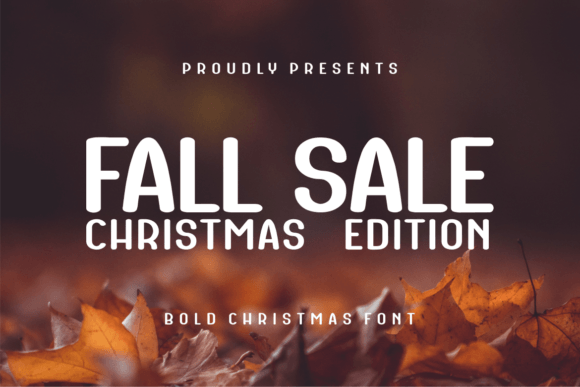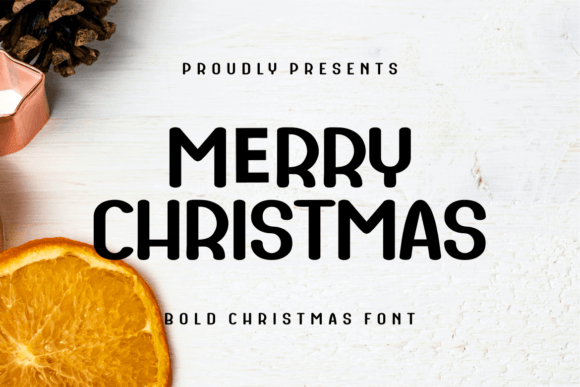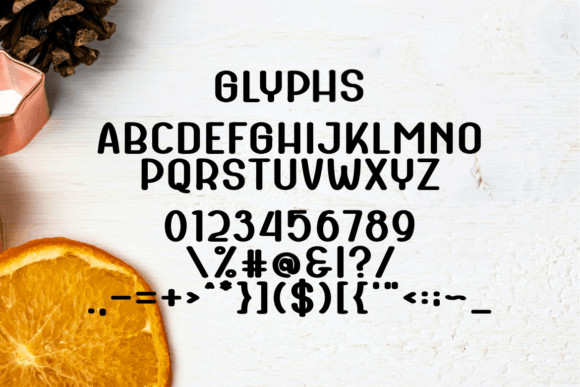
Introduction to Orheka Christmas Font
Orheka Christmas is a bold display font devoted to the Christmas mission.
It works best for Christmas food, greeting cards, gift decorations, or anything related to Christmas .
Key Features of Orheka Christmas Font
Why Choose Orheka Christmas Font?